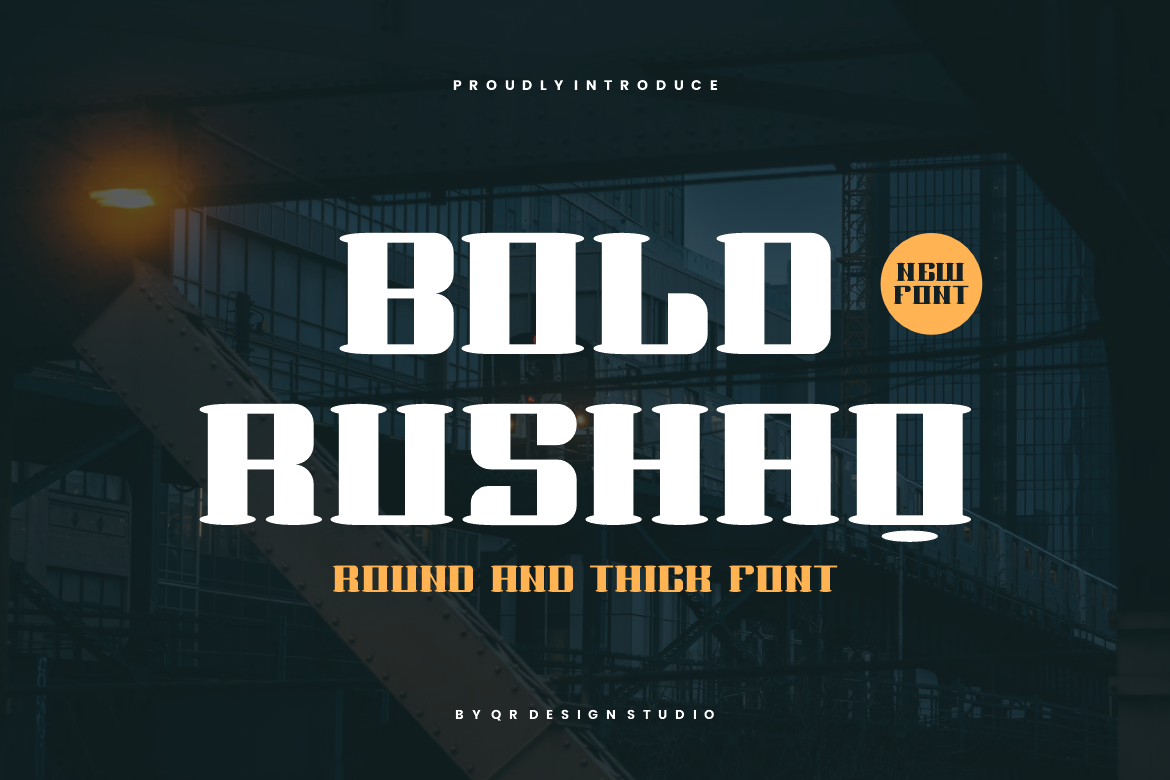
Bold Rushaq - Rounded & Thick Font
Bold Rushaq Font is a bold and authentic display font. The font is suitable for any branding project like poster, logo, sport, and many more. Outstanding in a wide range of contexts.